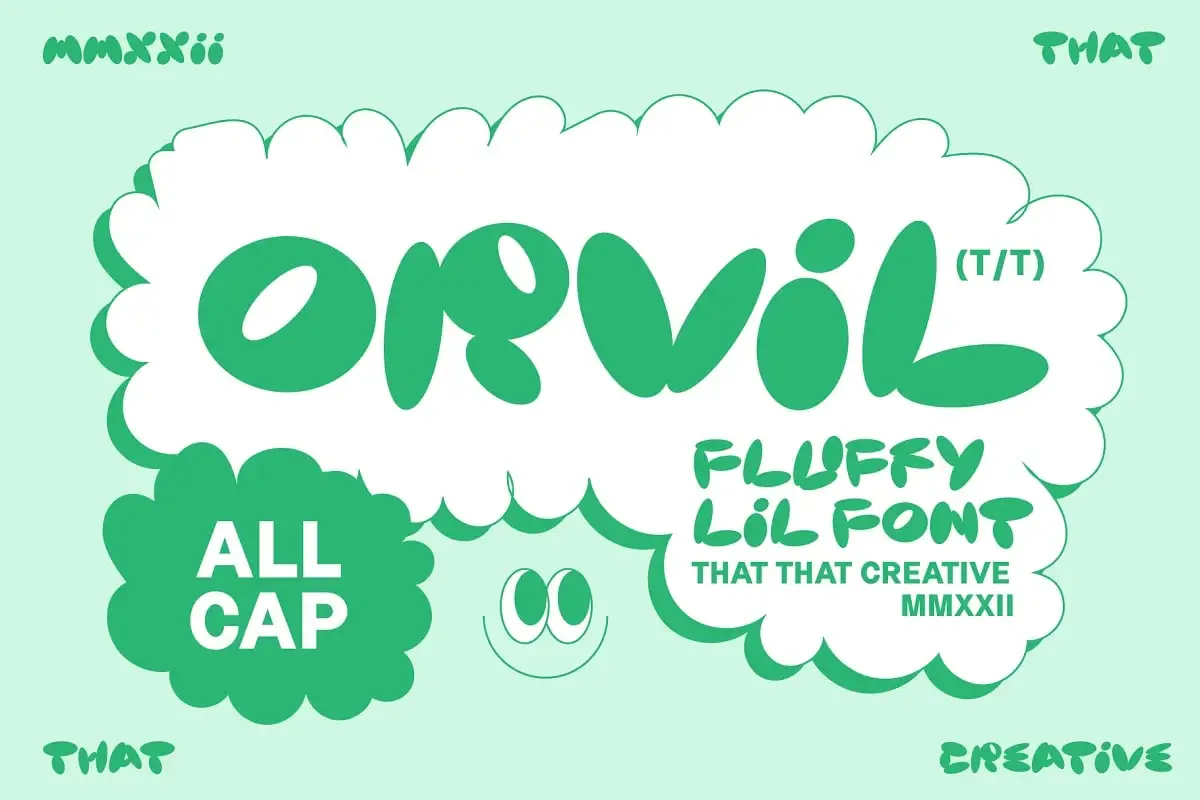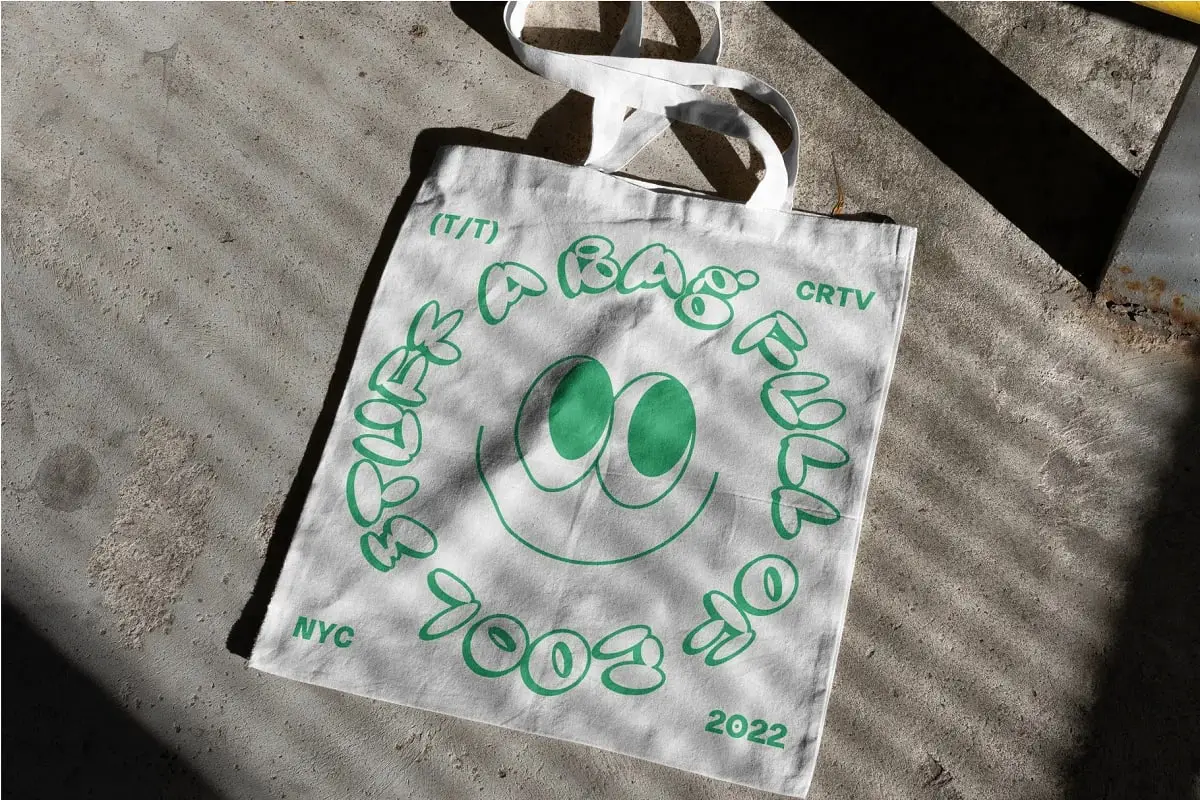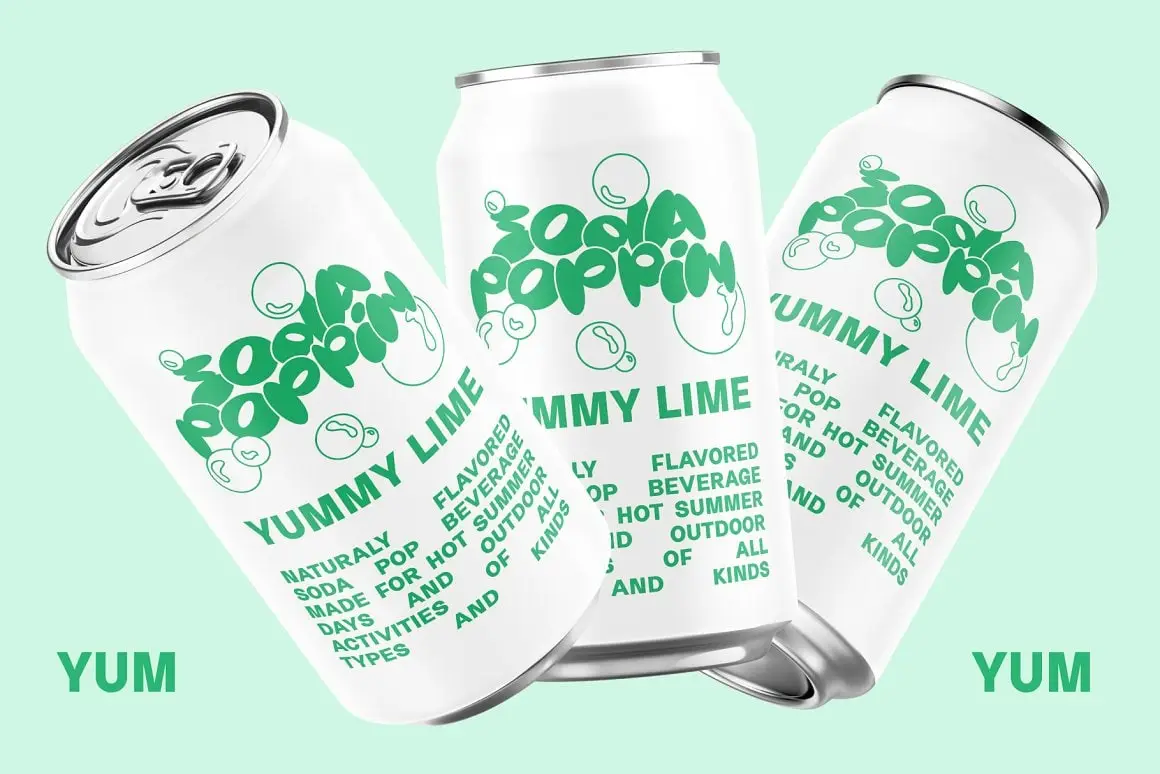
Introducing the Bubble Font Orvil by That That Creative, a playful and whimsical typeface that adds a touch of fun to any design project. This font features rounded edges and a bubbly appearance, making it perfect for children’s materials, party invitations, and branding that seeks to convey a light-hearted tone.
- Unique bubble-like style
- Uppercase and lowercase letters included
- Ideal for logos, branding, and promotional materials
- Great for web design and user interfaces
- Use in print for eye-catching posters and flyers